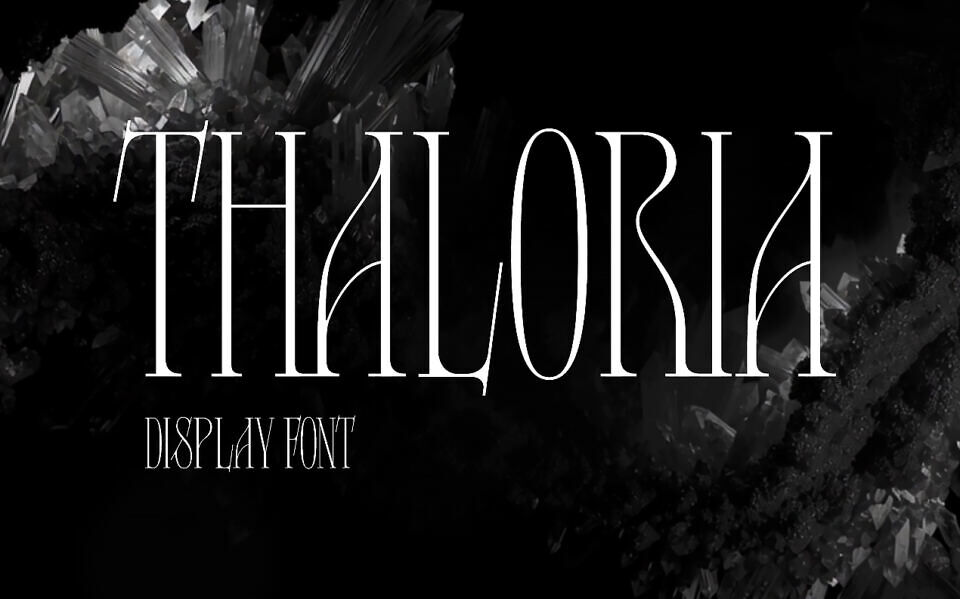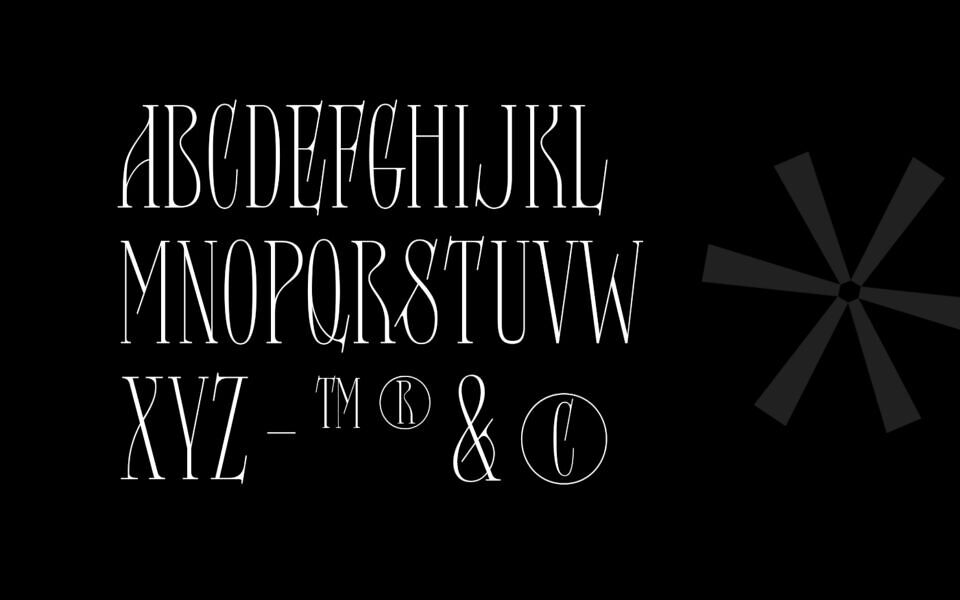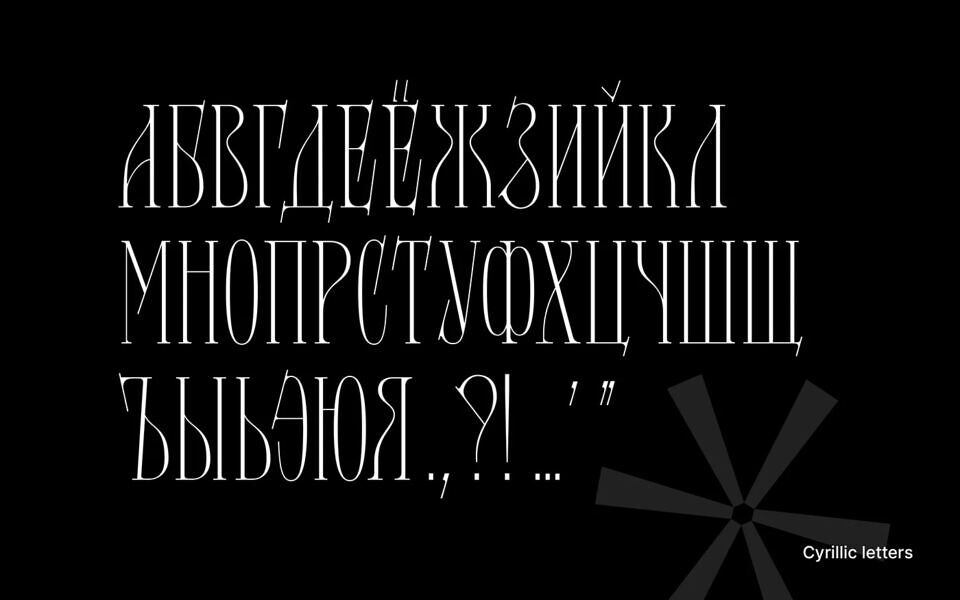
Thaloria is not just a font — it is a visual accent that instantly attracts the eye and sets the mood. It is ideal for projects where an atmosphere of sophistication, historical allusion, or artistic audacity is important.
The font is perfect for large headlines and is also suitable for posters, book covers, music albums, and other similar media. Supports Cyrillic, Latin, numbers, and basic symbols.
Thaloria font was created as part of the type designing course at the Alkali studio. Curator — Vladimir Anosov.